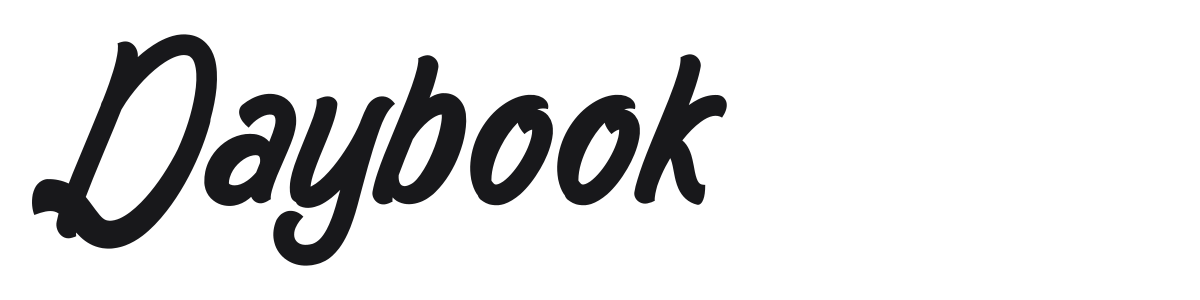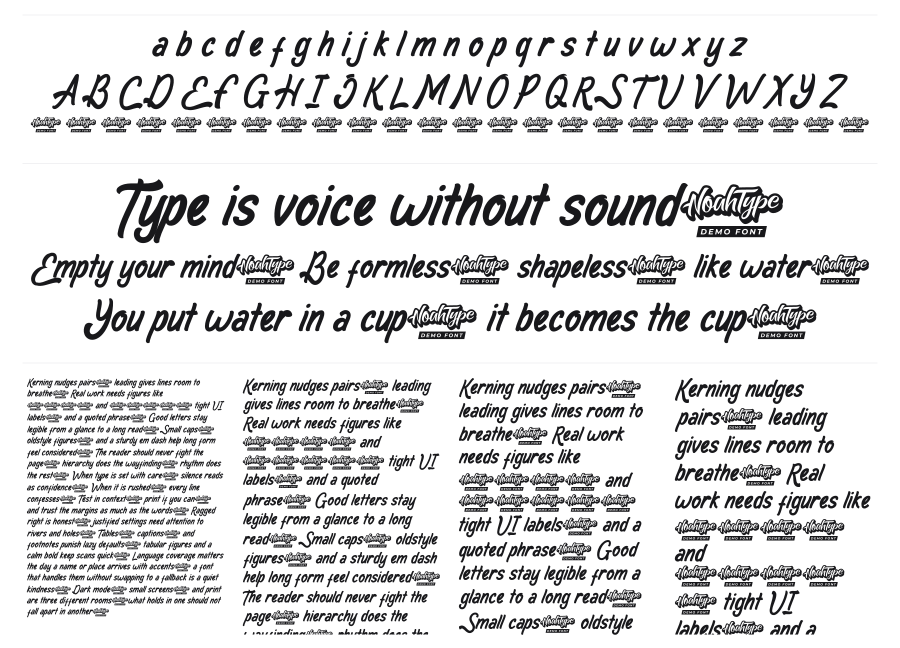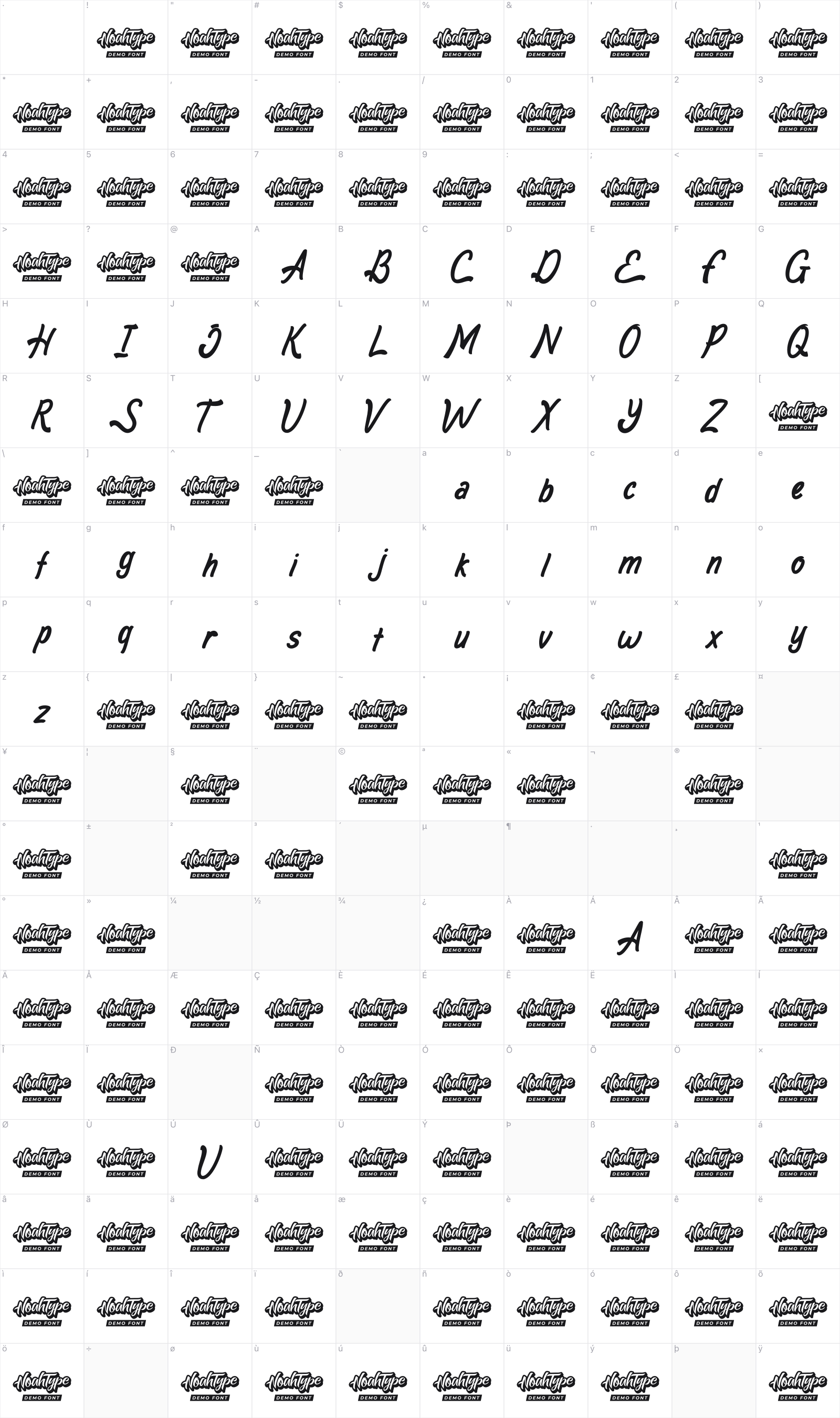
Daybook
Daybook is a bold casual script that leans hard into the spontaneous energy of hand-lettering. The thick, brush-influenced strokes and steep italic angle give it a lively, informal character that reads as genuine rather than performed. It works well at large sizes for logos, packaging, and headlines where you want something that feels personal and direct.